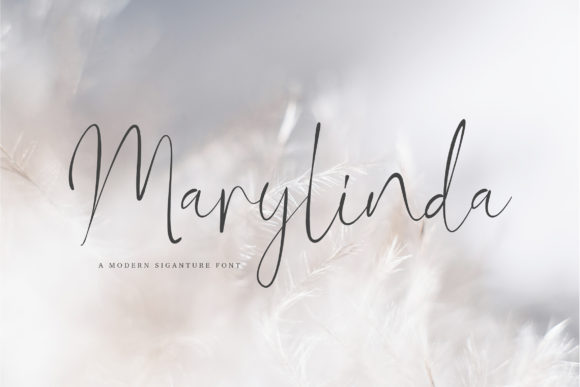
Unveil the Enchanting World of Marylinda: A Script Font Symphony
Prepare to be enthralled by Marylinda, a captivating creation from peterdraw, a visionary font artist. This mesmerizing script font is adorned with elegance and will undoubtedly cast a spell on your designs. Its alluring curves and delicate swashes will effortlessly elevate your projects, transforming them into masterpieces.
Immerse yourself in the boundless possibilities that Marylinda offers. Let your imagination soar as you explore its remarkable versatility. From the timeless charm of wedding invitations to the whimsical allure of greeting cards, Marylinda seamlessly adapts, adding a touch of sophistication and flair to every creation.
Unleash your creativity and let Marylinda guide you in crafting captivating social media posts that will leave your audience spellbound. Design enchanting stationary art that reflects your unique style. Allow Marylinda to elevate your branding materials, adding a touch of elegance and distinction. The possibilities are endless, limited only by your imagination.
Discover the magic of Marylinda and embark on a creative journey like no other. Its authentic feel, reminiscent of handwritten letters, will add a personal and heartfelt touch to your projects. Let Marylinda become your trusted companion, guiding you towards design excellence.